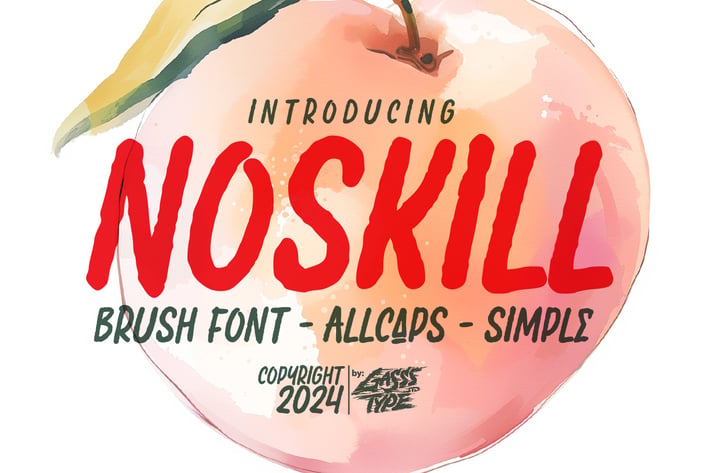
Noskill – Simple All Caps Brush Font
Noskill – All Caps Brush Font for Bold, Simple Designs
Perfect for creating striking headlines, minimalist logos, and impactful posters, Noskill is an all-caps brush font that embodies simplicity with a bold edge. With its clean, straightforward lines and powerful presence, Noskill is ideal for designs that require a no-nonsense, eye-catching aesthetic. The font’s all-caps style makes it a great choice for projects where clarity and emphasis are key.
Whether you’re designing for print or digital media, Noskill’s simplicity allows it to stand out in any context, making it a versatile addition to your font collection.